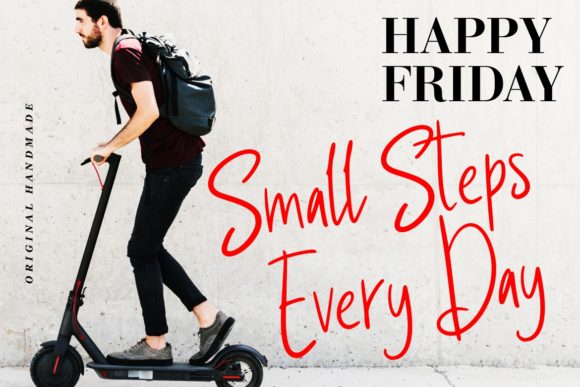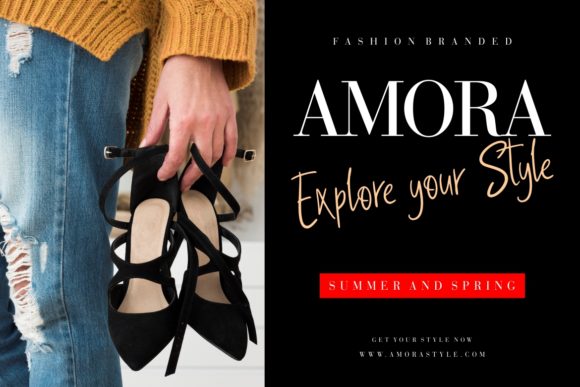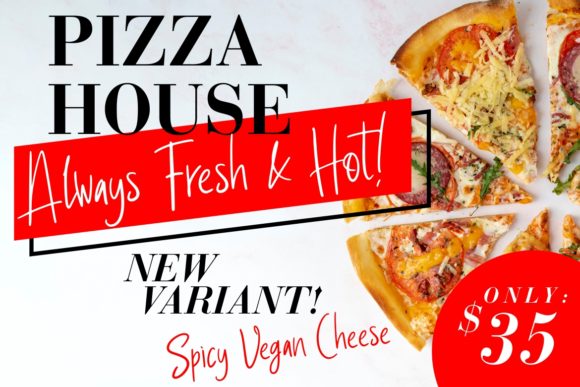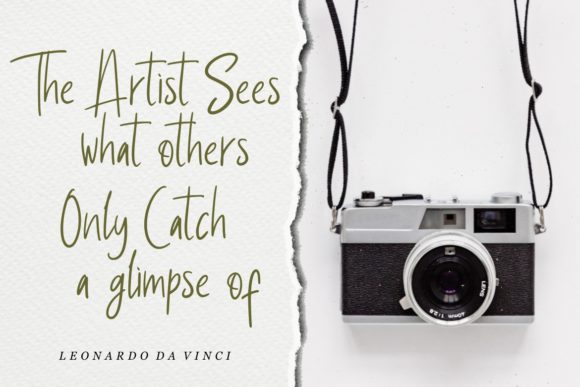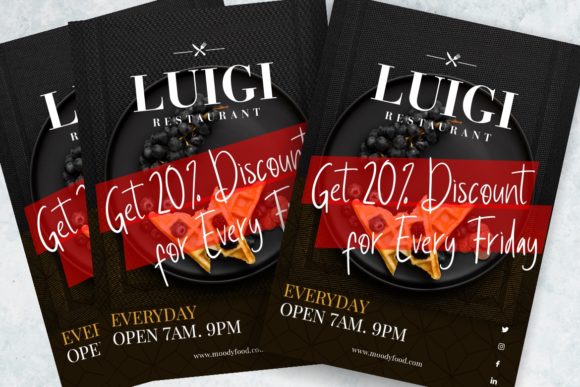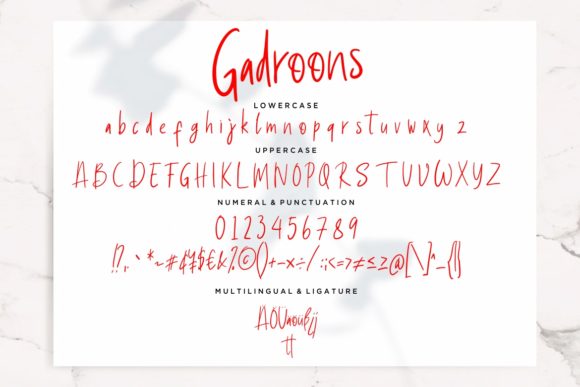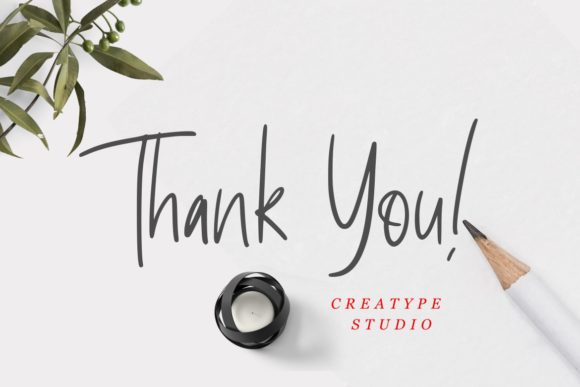
Gadroons Font
About Gadroons Font
Gadroons is a casual handwritten font. Due to its relaxed and simple style, this font has the ability to fit each of your creative ideas.